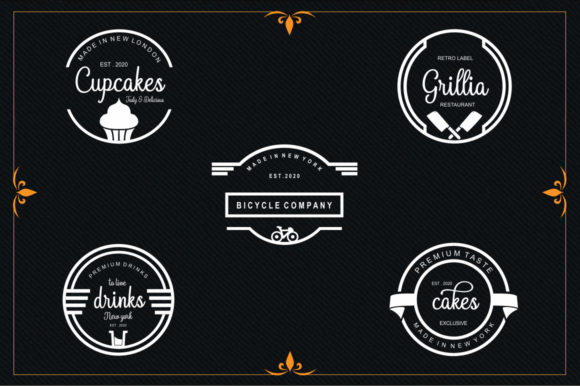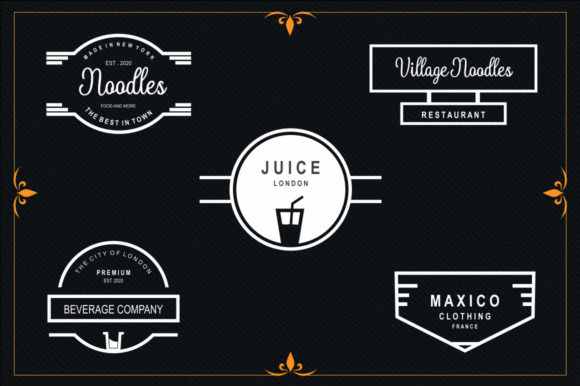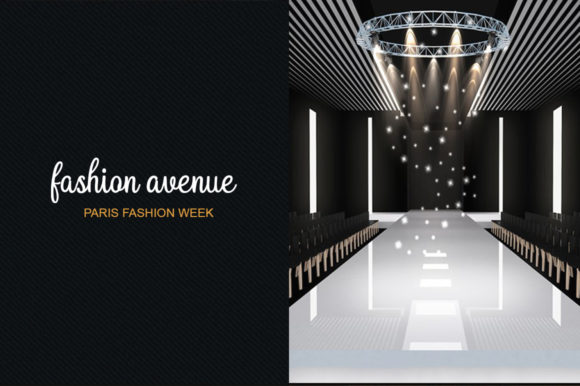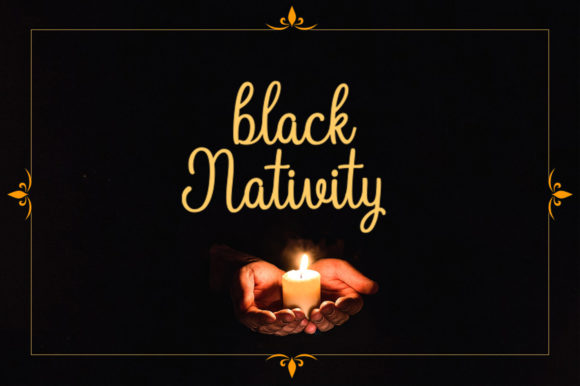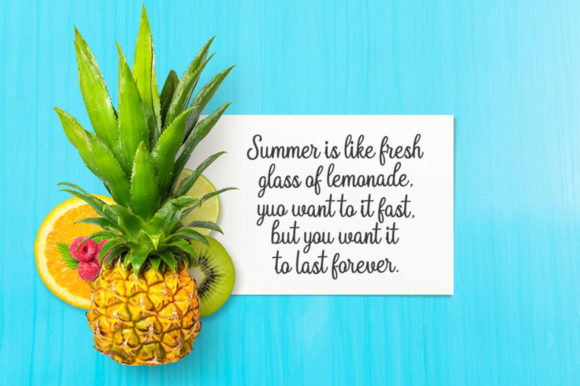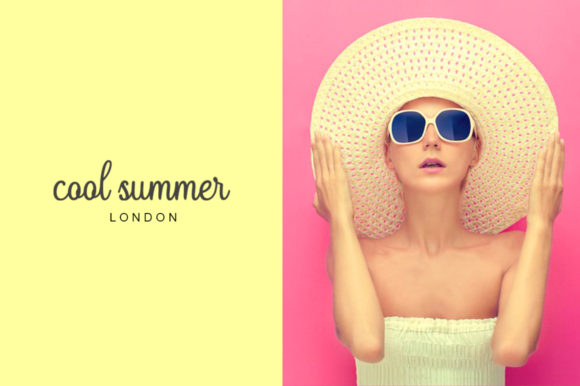
Introducing Andaluna Font: Elevate Your Designs with Elegance
Are you a designer or crafter looking for a font that can add a touch of sophistication and elegance to your projects? Look no further than Andaluna Font. This beautiful, handwritten font is carefully crafted to become a true favorite among designers and crafters alike. With its unique and stylish characters, Andaluna Font is perfect for a wide range of design projects, from branding and headings to wedding designs, invitations, signatures, logos, labels, and more.
The Characteristics of Andaluna Font
Andaluna Font is an elegant handwritten font that boasts a range of characteristics that make it stand out from other fonts. Its carefully crafted letters are designed to be both stylish and legible, making it perfect for use in a variety of design projects. The font features:
- Elegant Handwritten Style: Andaluna Font has a beautiful, flowing script that adds a touch of sophistication to any design project.
- Unique Characters: Each letter in the Andaluna Font is carefully crafted to be unique and stylish, ensuring that your designs stand out from the crowd.
- Legibility: Despite its elegant and cursive style, Andaluna Font is highly legible, making it perfect for use in body text as well as headings.
Uses of Andaluna Font
Andaluna Font is a versatile font that can be used in a wide range of design projects, including:
- Branding: Use Andaluna Font to create elegant and sophisticated brand identities that will help your business stand out.
- Wedding Designs: Add a touch of romance and elegance to your wedding designs, including invitations, programs, and decorations.
- Headings and Titles: Use Andaluna Font to create beautiful headings and titles for your designs, adding a touch of sophistication and style.
- Invitations and Signatures: Create elegant invitations and signatures that will make a lasting impression.
- Logos and Labels: Use Andaluna Font to create unique and stylish logos and labels that will help your business or product stand out.
Why Choose Andaluna Font?
There are many reasons why Andaluna Font is the perfect choice for designers and crafters looking for an elegant and stylish font. Here are just a few:
- High-Quality Design: Andaluna Font is carefully crafted to ensure that it is of the highest quality, with beautiful and unique characters that will elevate your designs.
- Versatility: Andaluna Font can be used in a wide range of design projects, making it a great addition to any designer’s or crafter’s toolkit.
Tips for Using Andaluna Font
Here are a few tips for using Andaluna Font in your design projects:
- Use it as a Headline Font: Andaluna Font is perfect for use as a headline font, adding a touch of elegance and sophistication to your designs.
- Pair it with Other Fonts: Experiment with pairing Andaluna Font with other fonts to create a unique and stylish look.
- Use it in Digital and Print Designs: Andaluna Font can be used in both digital and print designs, making it a great addition to any designer’s or crafter’s toolkit.
Andaluna Font is a beautiful and elegant handwritten font that is perfect for designers and crafters looking to add a touch of sophistication and style to their design projects. With its unique and stylish characters, Andaluna Font is versatile and can be used in a wide range of design projects, from branding and headings to wedding designs, invitations, signatures, logos, labels, and more. Whether you’re a professional designer or a crafter, Andaluna Font is a great addition to your toolkit.